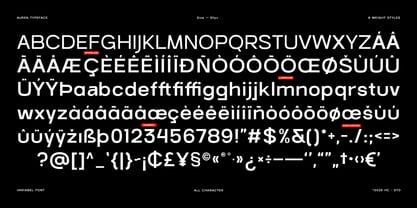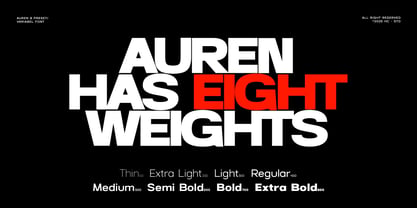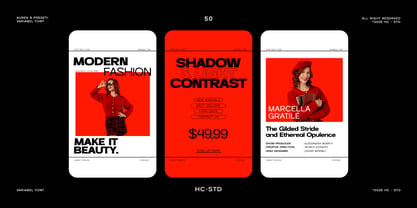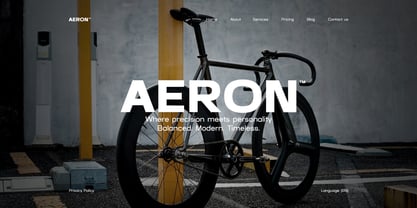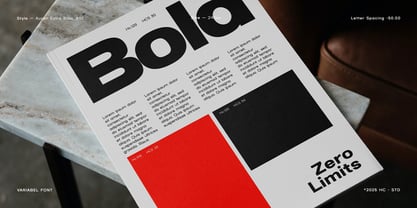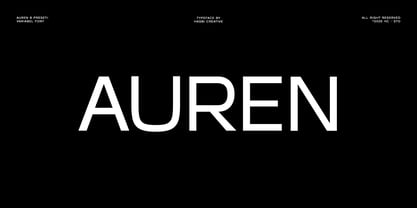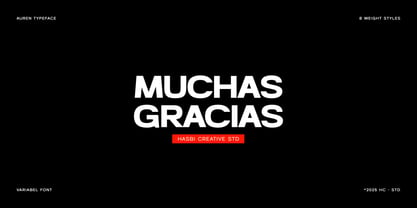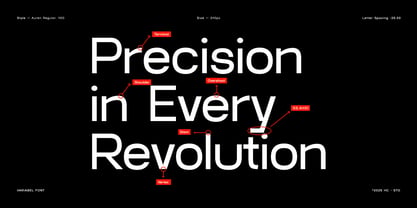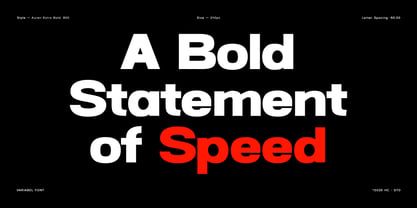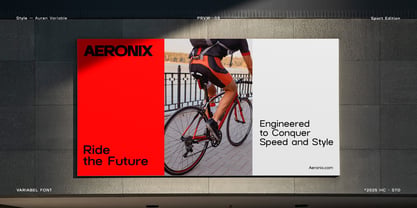
Auren
by Hasbi Creative
The Auren Font Family was designed by Hasbi Azmi and published by Hasbi Creative. Auren contains 9 styles and family package options. More about this family
Auren is a modern humanist sans-serif typeface designed to balance clarity, warmth, and timeless sophistication. Born from the pursuit of harmony between function and emotion, Auren was crafted to deliver a clear voice across every design context. Each curve and proportion was carefully refined to create a typeface that speaks softly yet confidently — from digital interfaces to editorial layouts. With eight versatile weights ranging from Thin to Extra Bold, Auren transitions smoothly between text and display applications, offering a consistent tone across branding, magazines, packaging, and UI design. Auren’s geometric foundation gives it precision, while its subtle humanist touch adds approachability — making it equally suitable for corporate identity, fashion editorials, or clean web typography. Whether used for headlines, logos, or long-form reading, Auren adapts effortlessly, combining professionalism with personality. It’s not just designed to be read — it’s designed to be seen, remembered, and trusted. Features - 8 professional weights (Thin → Extra Bold) - Variable font with adjustable weight axis - Perfect balance for text & display use - Clean geometric construction with humanist details - Ideal for branding, magazines, posters, and UI design - Optimized for both print and screen use
Designers: Hasbi Azmi
Foundry: Hasbi Creative